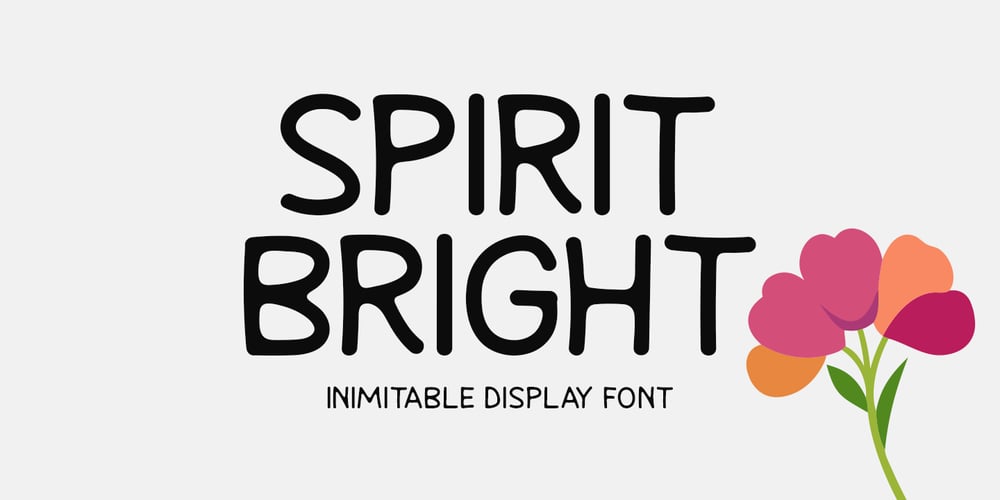
Spirit Bright
Spirit Bright font
Spirit Bright Font Family was designed by Md Shohail Bhuian and published by Seemly Fonts. Spirit Bright contains 1 styles and family package options. With its unique elegance, Spirit Bright is the perfect display font for adding a touch of class to your projects. Whether it’s for stationery, logos, apparel, printed media, web headers, photo frames, promotional flyers, album covers, posters, or image sliders, it delivers a refined look.